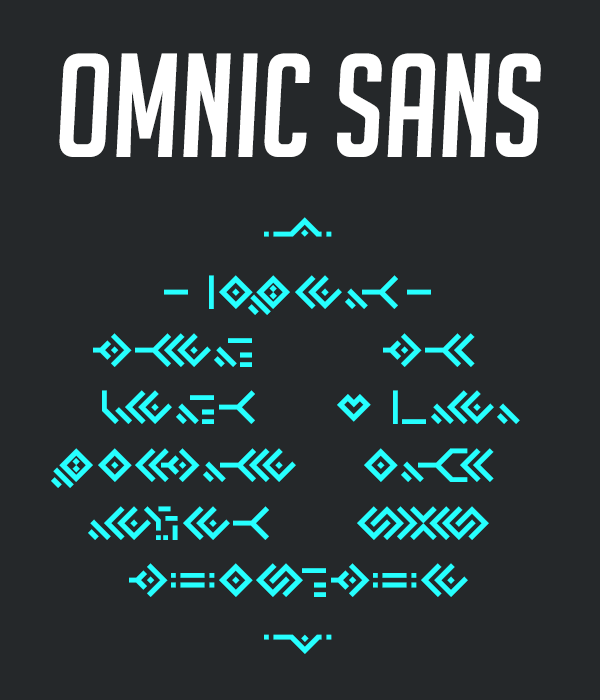
Font name: | Omnic Sans |
Author: | Aleksandr Savenkov |
Note by Aleksandr Savenkov | |
Omnic Sans is a sans-serif typeface based on Omnic script from Overwatch by Blizzard Entertainment. |